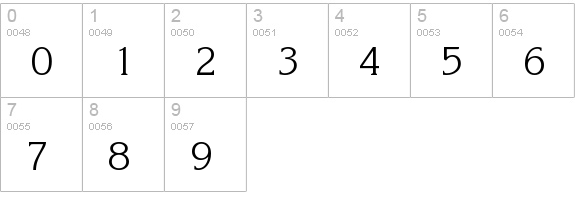
KorinthSerial-Light-Regular is a refined, elegant variant in the KorinthSerial typeface family \xE2\x80\x94 well suited to elegant body text, refined sub-headings, and luxury branding.
KorinthSerial-Light-Regular font is a modern and elegant typeface that exudes sophistication and professionalism. Its clean lines and balanced letterforms make it perfect for a wide range of design projects, from branding to editorial layouts. The gentle curves and subtle serifs give this font a timeless appeal that will elevate any text it is applied to. The best part is that KorinthSerial-Light-Regular font is available for free download at FontsMarket.com. This means you can easily add this versatile font to your collection without breaking the bank. Whether you are a designer looking to expand your font library or a business owner in need of a stylish typeface for your marketing materials, KorinthSerial-Light-Regular font is a fantastic choice. Download it today and start creating beautiful designs with this high-quality and freely available font.